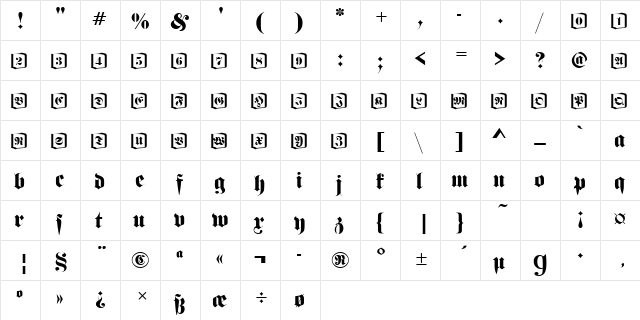
Fette Becker Fraktur Ini Regular
Design Context for Fette Becker Fraktur Ini Typeface
Fette Becker Fraktur Ini channels the dramatic heritage of Fraktur and Gothic scripts, bringing a sense of historical gravitas to any design.
A natural fit for music packaging, gothic editorial design, and any project that needs historical weight.
Font Pairing: Pair with a clean neutral sans-serif for body copy to let Fette Becker Fraktur Ini's character lead without overwhelming the composition.
Pro Tip: Reserve Fette Becker Fraktur Ini for display and logo use — pair it with a clean sans-serif for body copy to prevent the composition from feeling oppressive.